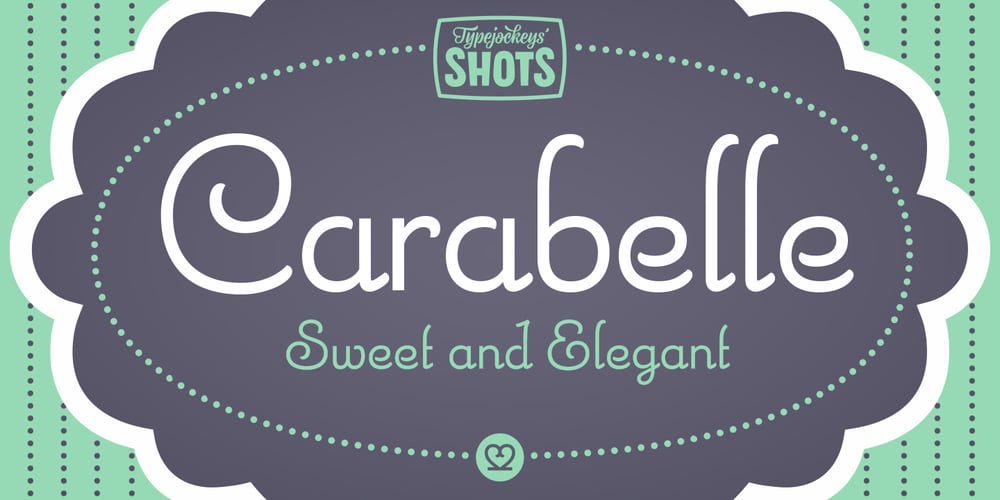
Carabelle Font Family was designed by Michael Hochleitner and published by Typejockeys. Carabelle contains 1 styles and family package options. Carabelle is based on the Nebiolo type foundry’s Calipso design. Newly redrawn and with many original details added, this old typeface has been revitalized. Noble and sweet, Carabelle plays the elegant companion for cup cake shops, wedding invitations or culinary tours through France and Italy.